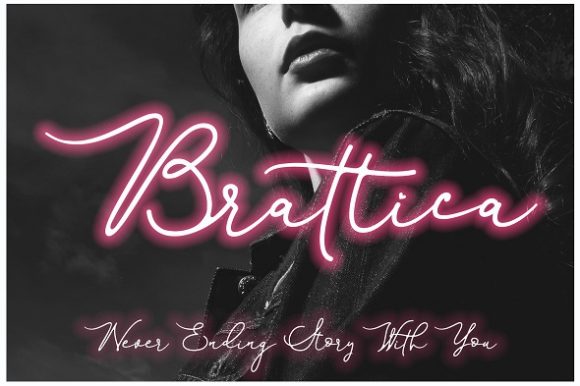
The Brattica Script Font: A Designer’s Delight
I’ll never forget the time I was working on a project for a luxury brand, and I was struggling to find the perfect font to convey their high-end feel. The client was specific about wanting a script font that exuded elegance and sophistication. After hours of scouring the internet, I stumbled upon the Brattica Script Font, and it was love at first sight! 💕
The Brattica Script Font has a natural, yet elegant touch that makes it perfect for a wide range of design projects. In this article, I’ll share my honest review of the font, provide a practical guide on how to use it, and explore similar fonts that you might enjoy.
- ✨ The Brattica Script Font has an awesome and classy feel that elevates any design project.
- ✅ It’s absolutely easy to use, even for those who are new to script fonts.
- 💫 The font has a unique, hand-crafted feel that adds a touch of personality to any design.
- 🎨 It’s incredibly versatile and can be used for a wide range of projects, from luxury branding to wedding invitations.
While the Brattica Script Font is an amazing font, there are a few quirks to be aware of: 🤔
- ⚠️ Some of the letters may be a bit too ornate for very small font sizes.
- ⚠️ The font may not be suitable for very formal or traditional designs, as it has a slightly modern feel.
- Experiment with the font’s OpenType features, such as glyphs and stylistic alternates, to add more personality to your design.
- Pacifico: This font has a similar elegant and refined feel to Brattica Script. It’s perfect for designs that require a touch of sophistication.
- Great Vibes: This font has a more playful and whimsical feel than Brattica Script, but still retains a level of elegance. It’s great for designs that require a bit of personality.
- Alex Brush: This font has a similar hand-crafted feel to Brattica Script, but with a more rustic and vintage vibe. It’s perfect for designs that require a touch of warmth and character.
- Lobster: This font has a more formal and traditional feel than Brattica Script, but still retains a level of elegance. It’s great for designs that require a touch of sophistication and luxury.
The Brattica Script Font was designed with inspiration from classic calligraphy and modern script fonts. The designer aimed to create a font that was both elegant and approachable, with a unique personality that would stand out in any design.
A: The Brattica Script Font is a script font with an elegant and refined feel. It’s perfect for designs that require a touch of sophistication and luxury.